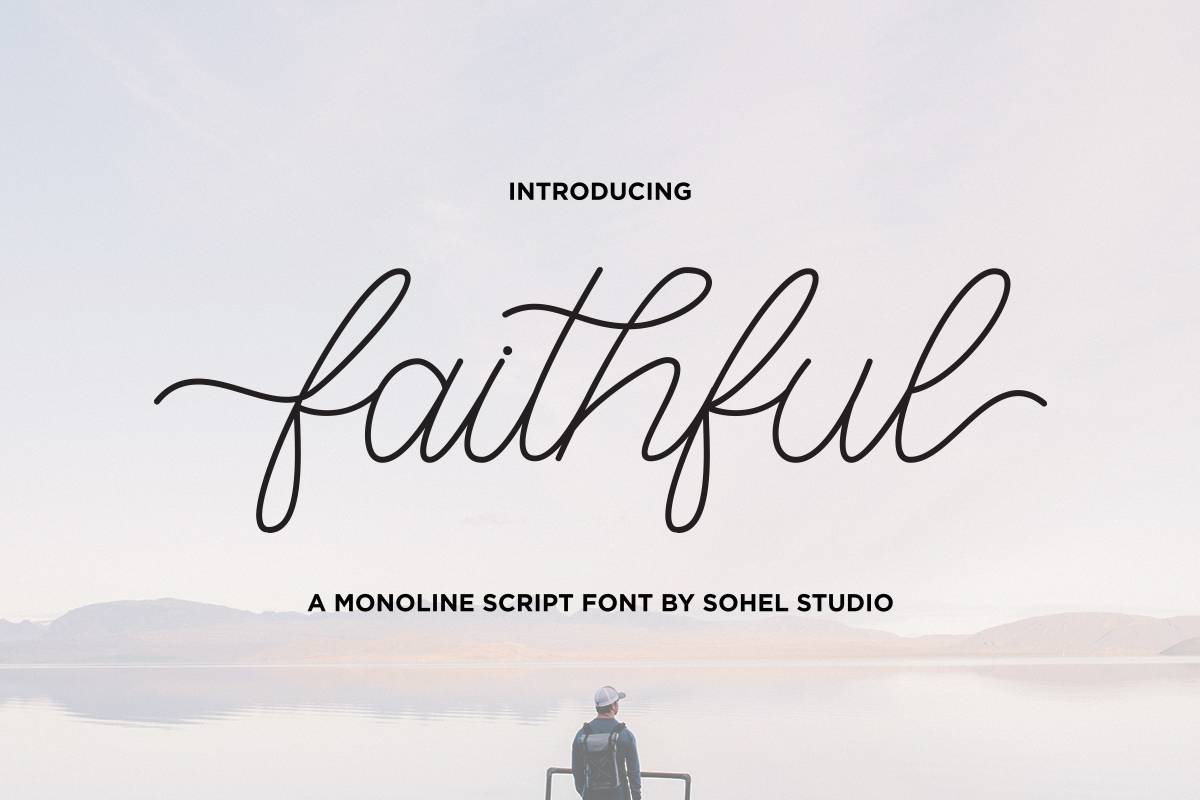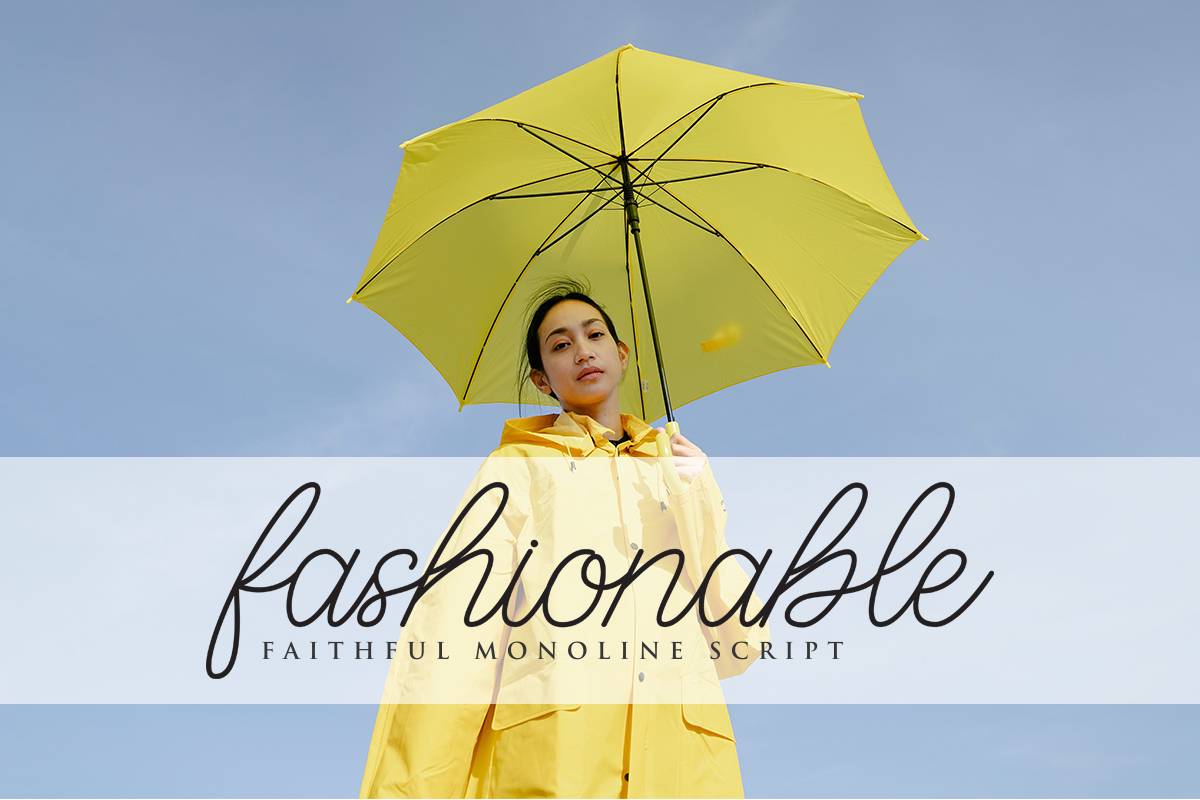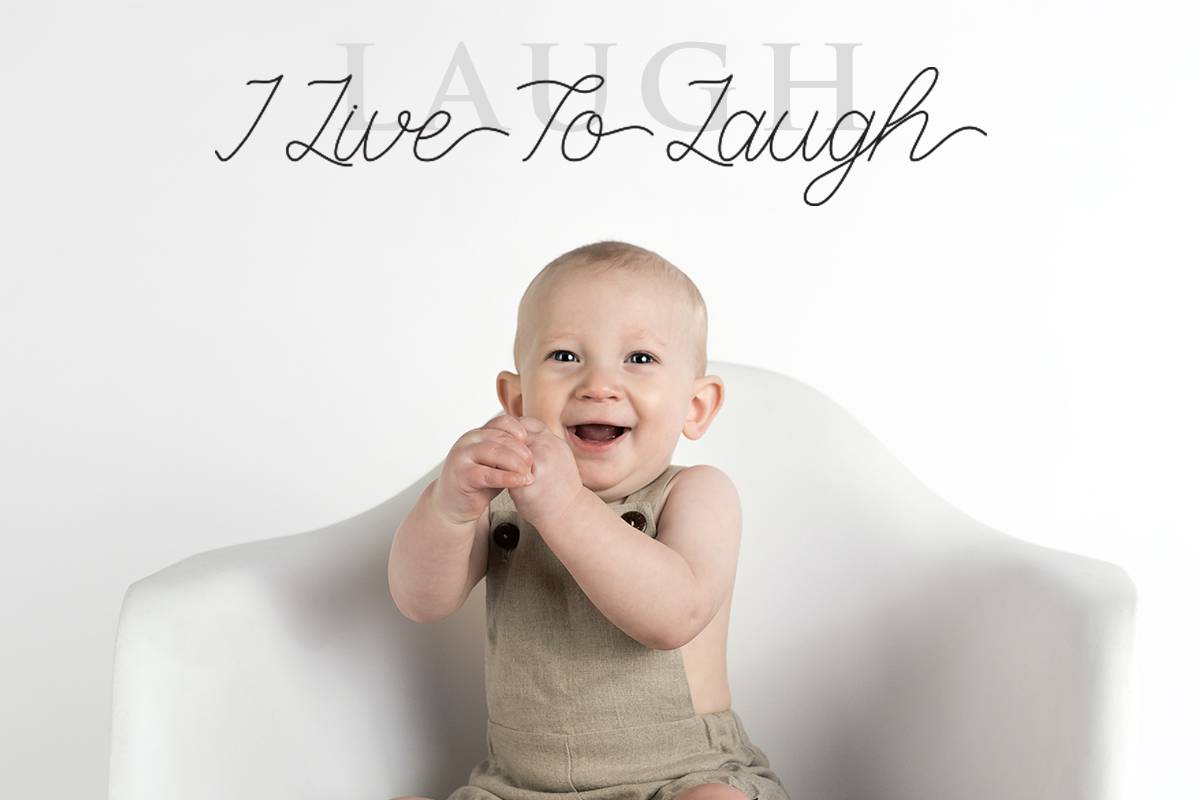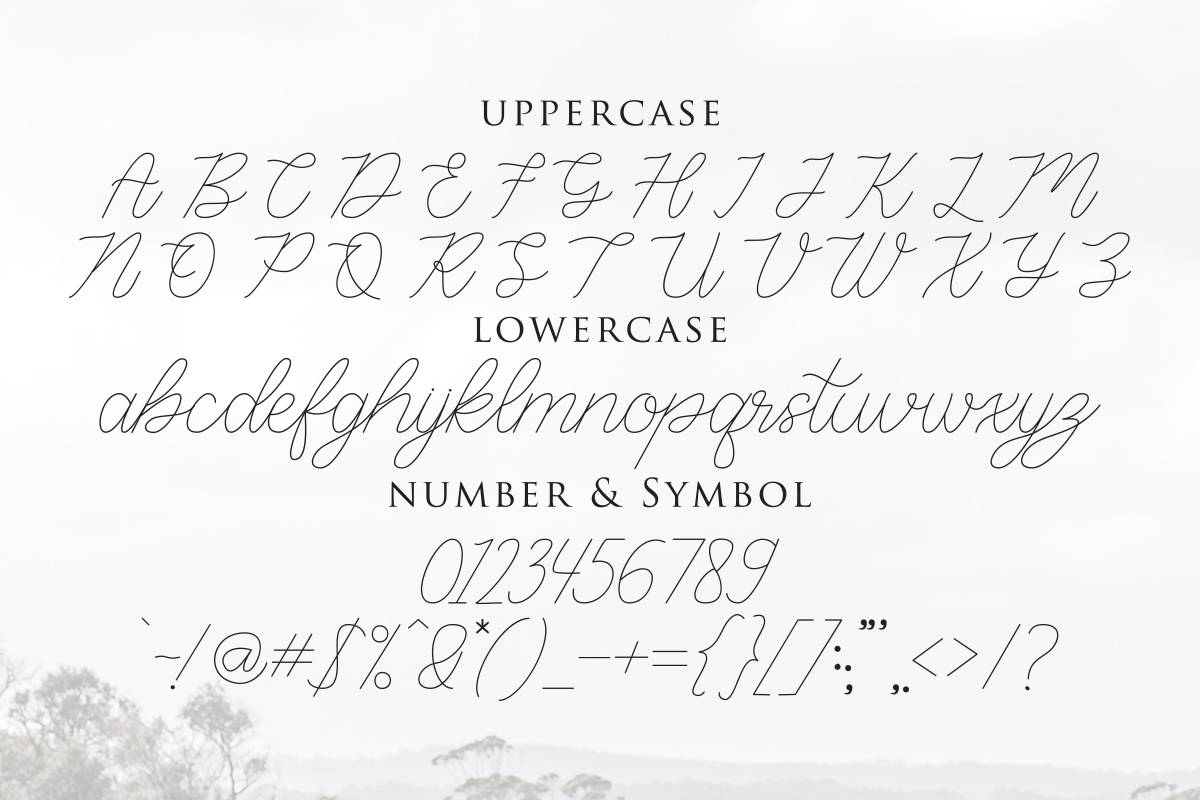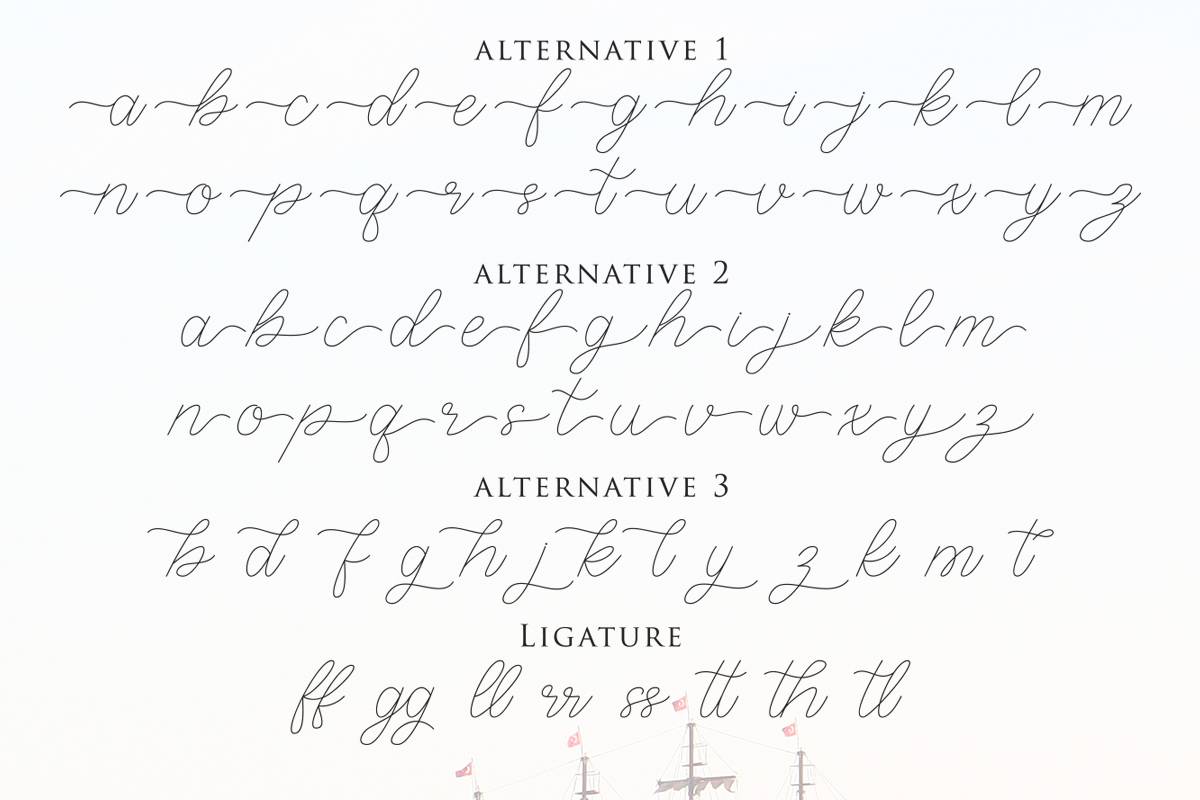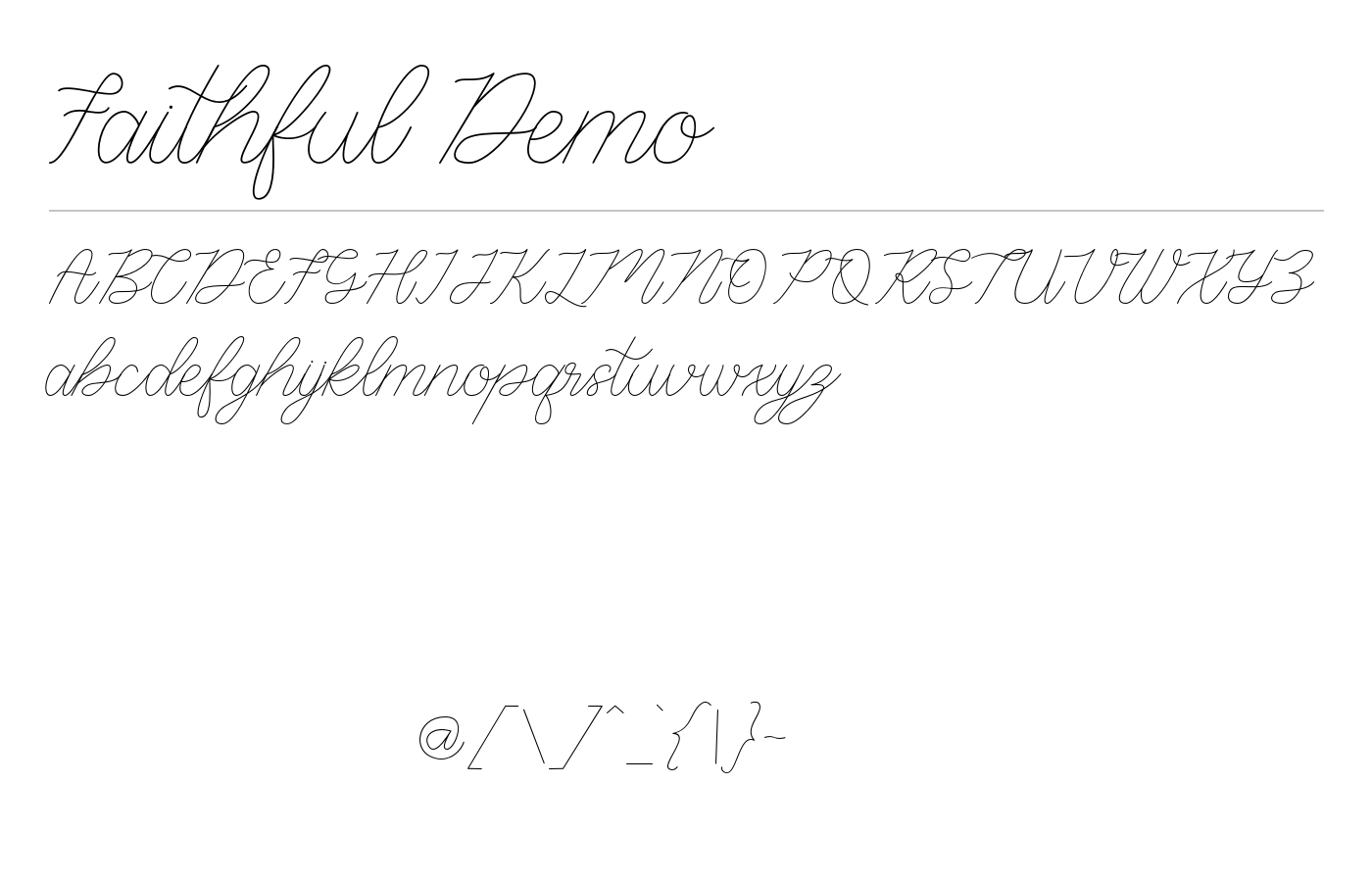
Faithful Font is a delicate, elegant script typeface that mimics fine, flowing handwriting with thin, graceful strokes and an airy, light feel. Its cursive forms convey a sense of sophistication and personal touch, making it ideal for wedding invitations, personal branding, and elegant editorial accents where a refined, gentle style is desired. This font’s slender lines and smooth connections lend a timeless, artistic charm perfect for projects that require a subtle and intimate aesthetic.
Faithful Font
About Faithful Font
| Font family | Faithful Font |
| Designer | Akhmad Husein Rifai |